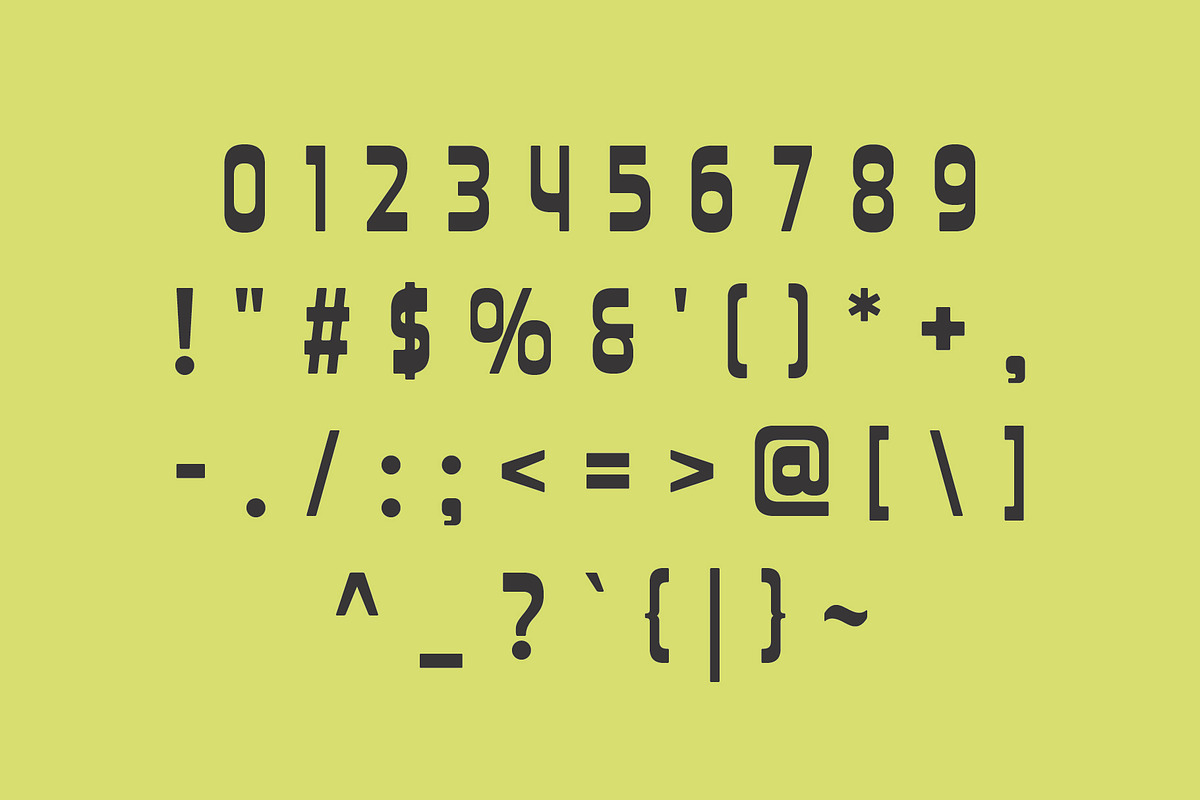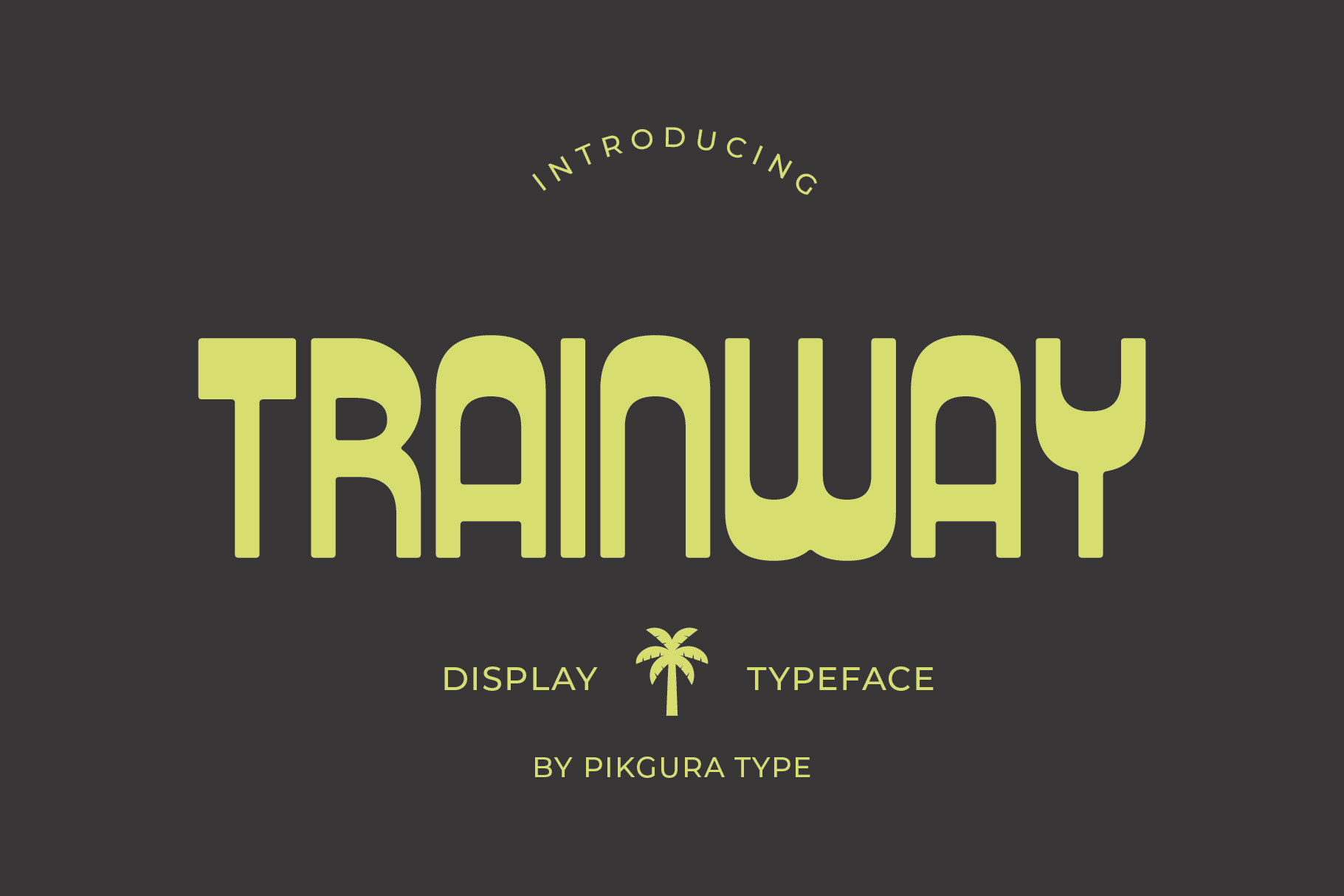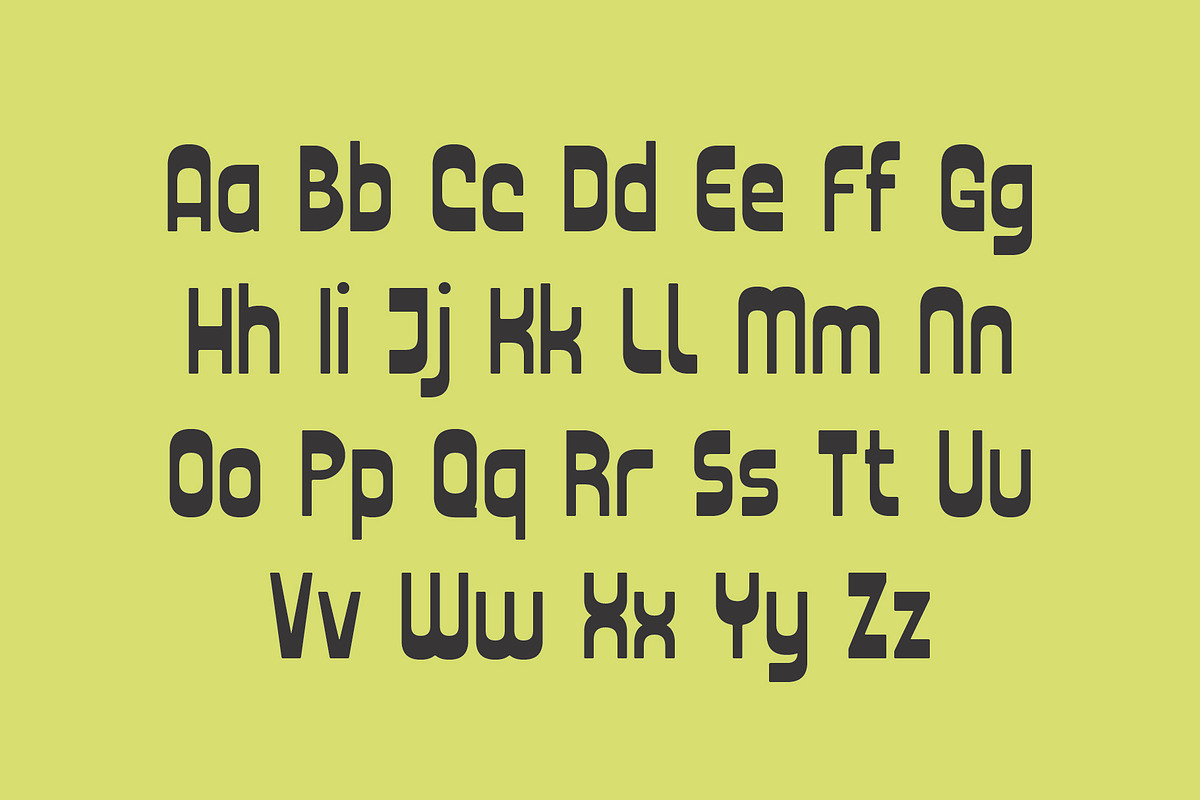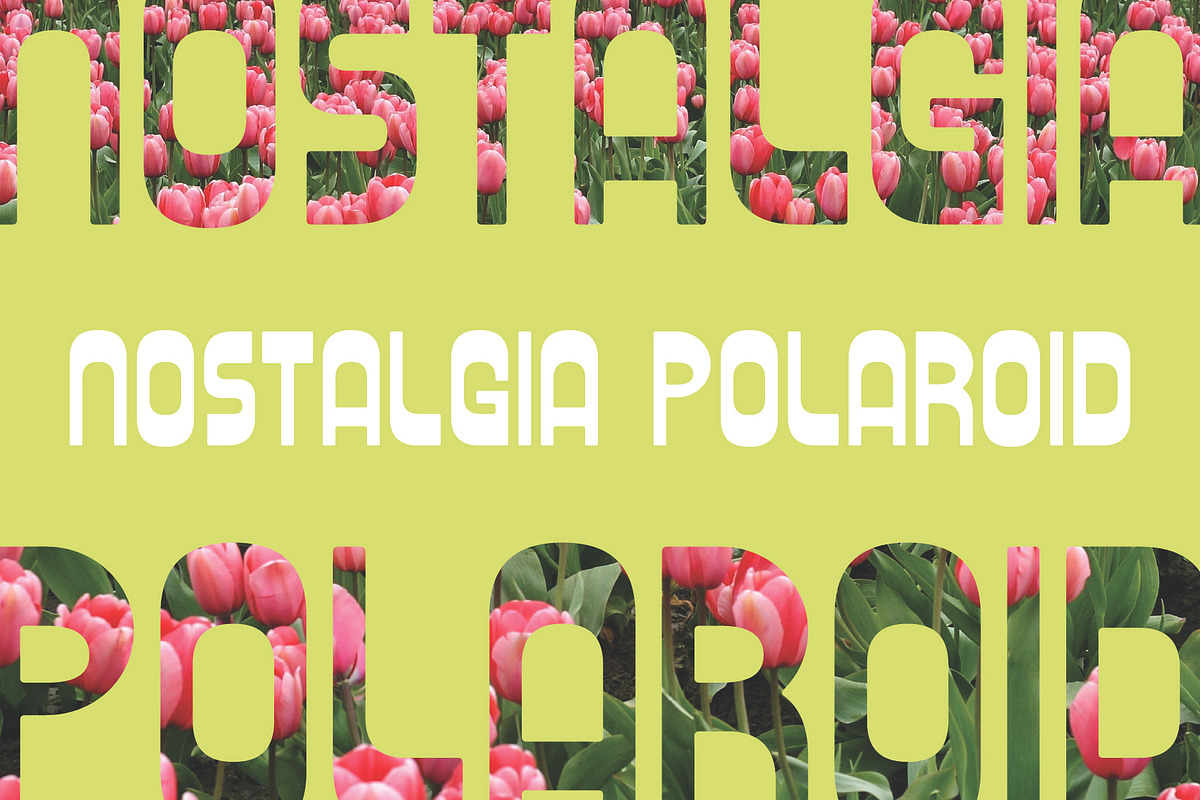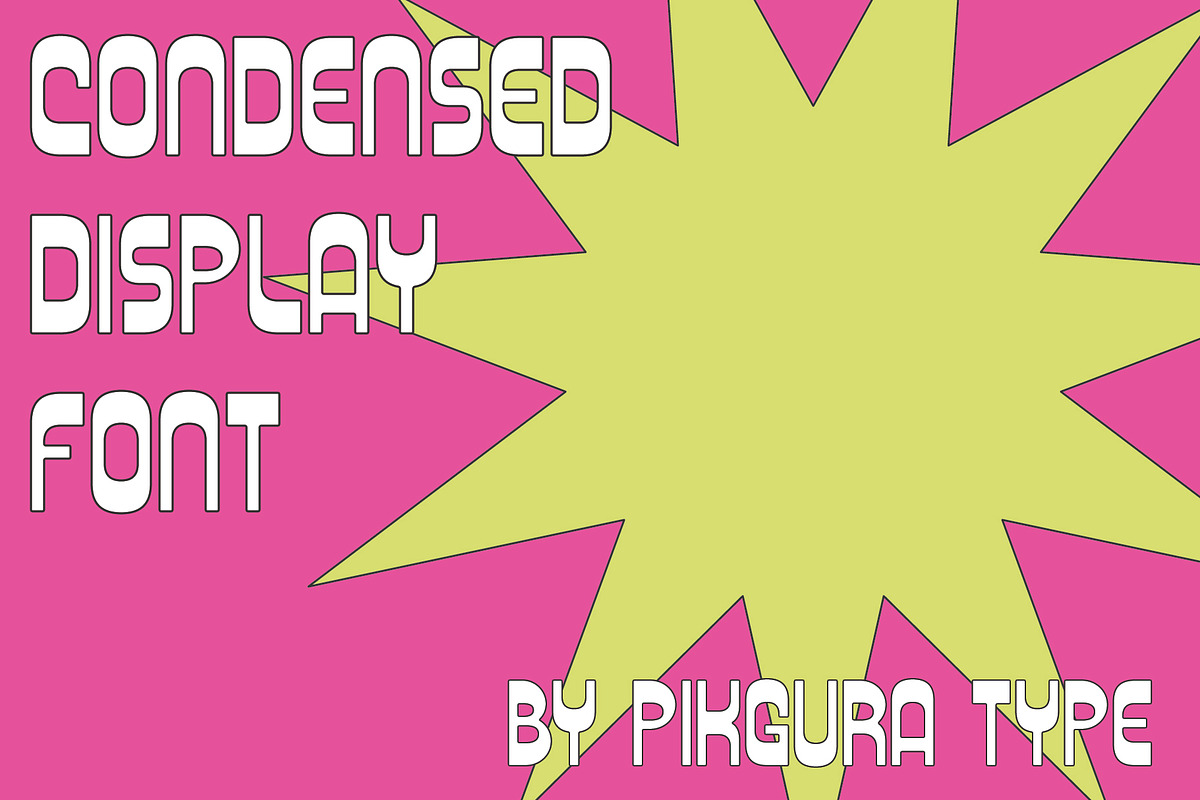
Trainway - Condensed Display Font
Need a font that commands attention? Trainway delivers a bold, tall look with rounded edges that add a friendly touch. Its clean and modern shape makes it perfect for designs that need to stand out.
Whether you’re working on posters, headlines, logos, or social media content, Trainway brings strong visual impact. It helps your message appear confident, clear, and bold.
The font includes uppercase and lowercase letters, along with numbers and basic symbols. So, you have everything you need to build striking, professional layouts.
If you’re looking for a font with presence and personality, try Trainway. It’s bold, tall, and ready to elevate your next design.